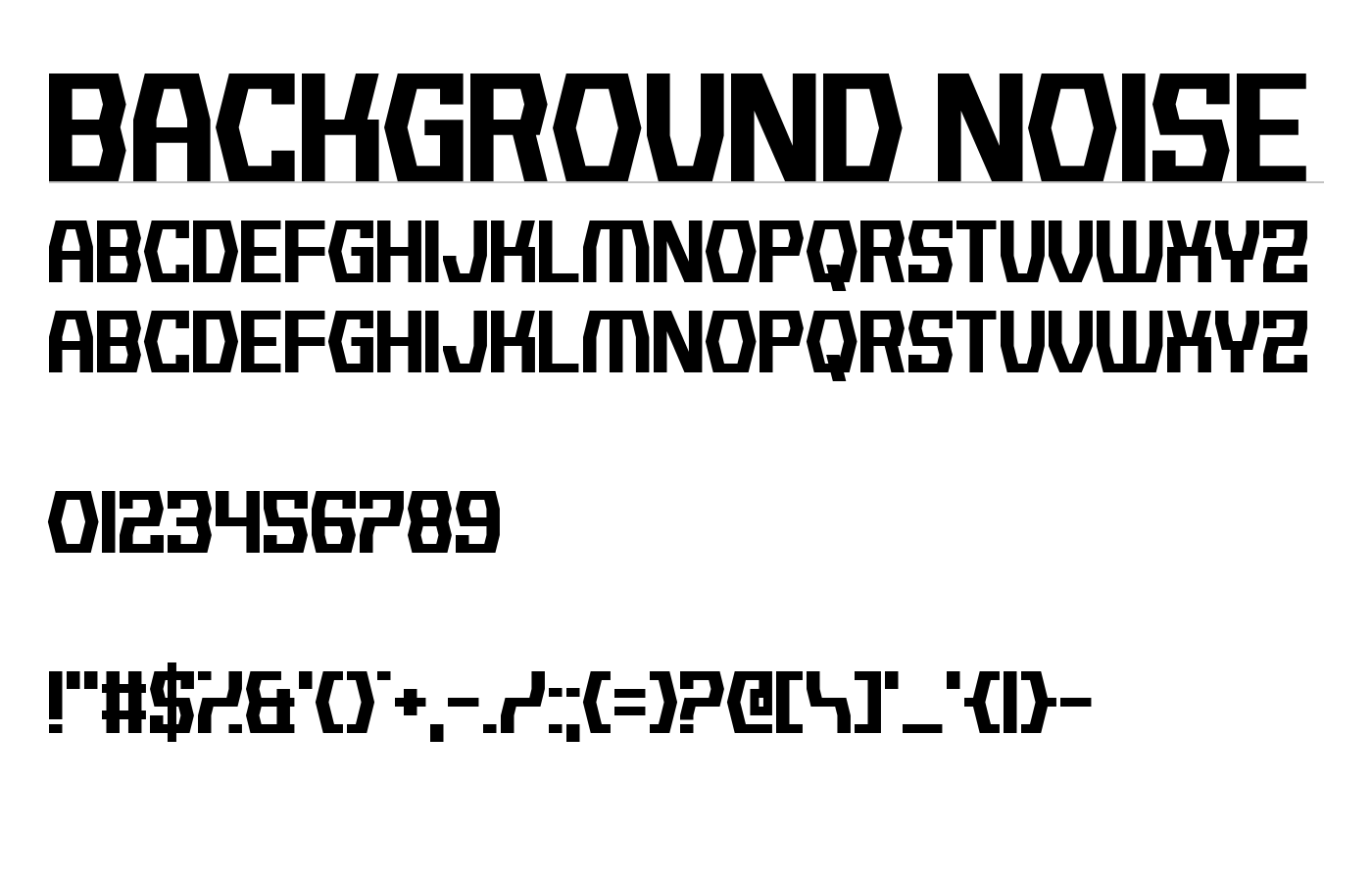
Background Noise is a bold, condensed sans serif font with angular, geometric shapes that give it a strong, futuristic vibe. Its sharp, blocky letterforms and consistent stroke weight create a striking, industrial look, making it ideal for headlines, posters, and branding that aims to convey modernity and edgy energy. This font works best in attention-grabbing contexts where a powerful, tech-inspired style is needed.
Background Noise Font
About Background Noise Font
| Font family | Background Noise Font |
| Designer | NAL |